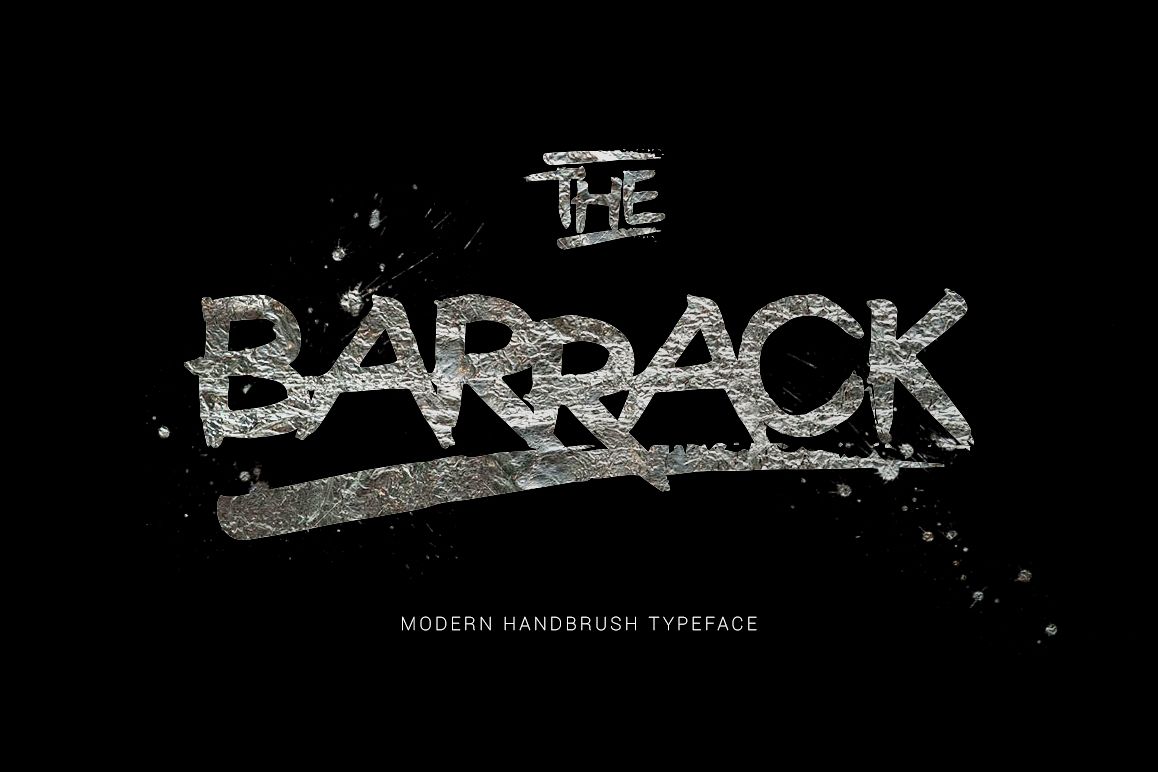
The Barrack Typeface
The Barrack.
Comes with just lowercase characters, numerals, ligatures, and supports international languages. Use the Uppercase for the Underline, accessible in the Adobe Illustrator Glyphs panel.
Can be used for various purposes.such as headings, logos, wedding invitation, t-shirt, letterhead, signage, label, news, posters, badges etc.